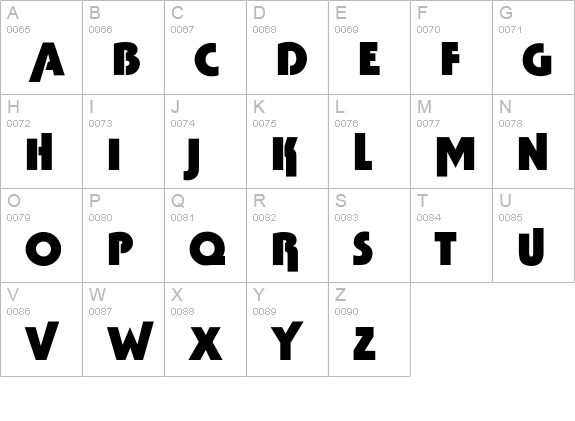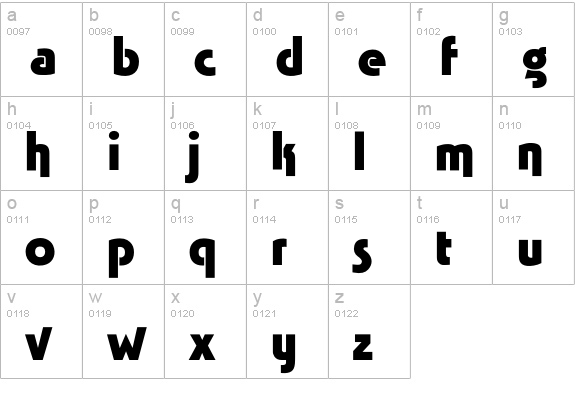
TabascoBold Font Details
Introducing TabascoBold, a captivating and bold font that is sure to make a statement. With its strong lines and powerful presence, this font exudes confidence and commands attention. TabascoBold is the perfect choice for any project that requires a touch of boldness and sophistication. Whether you're designing a striking logo, creating eye-catching headlines, or crafting visually appealing posters, this font will add a touch of elegance and professionalism to your work. The distinct characteristics of TabascoBold make it stand out from the crowd. Its thick strokes and unique letterforms create a visually appealing and memorable typography experience. This font is designed to leave a lasting impression and ensure that your message is heard loud and clear. But that's not all – TabascoBold is also free! That's right, you can freely download this extraordinary font at FontsMarket.com. We believe that great design should be accessible to all, and that's why we're offering TabascoBold as a free download. So go ahead, unleash your creativity and elevate your designs with this remarkable font. Whether you're a seasoned designer or just starting out, TabascoBold is the perfect addition to your font collection. Its versatility and timeless appeal make it suitable for a wide range of projects, from branding and advertising to web design and print materials. So don't miss out on this opportunity to enhance your designs with TabascoBold. Download it for free at FontsMarket.com and let your creativity soar.